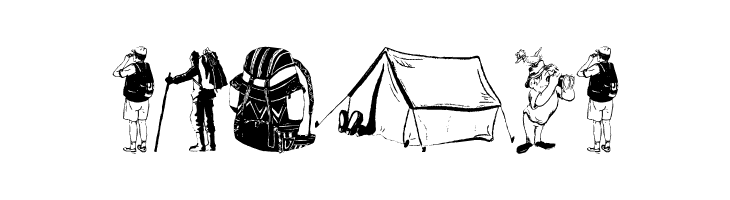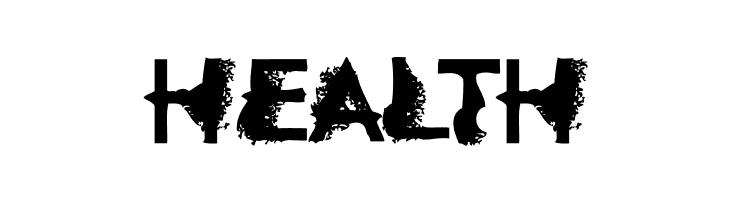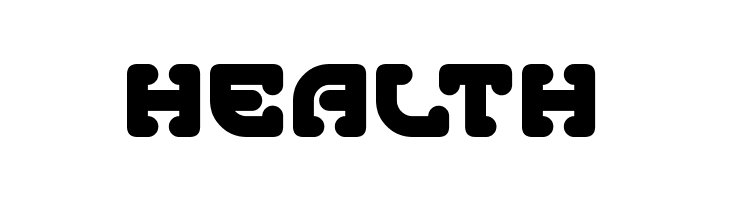
A dynamic, brush-style handwritten font with expressive strokes.
A playful, handwritten font with tall, narrow letters and consistent stroke thickness.
A bold, distressed font with a grunge and rebellious style.
A bold, rounded, geometric font with a modern and futuristic style.
Whimsical cartoon outdoor activity illustrations form each character.
A dynamic and expressive handwritten font with fluid strokes and playful curves.
A decorative font with UFO and alien spacecraft designs.